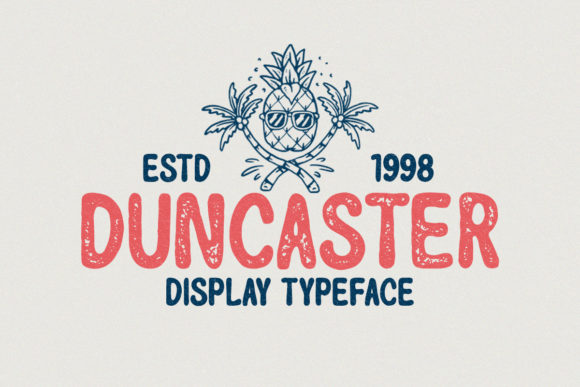
Duncaster Font: The Perfect Blend of Clean and Quirky for Your Creative Projects
In the world of typography, fonts play a crucial role in conveying the tone and personality of a brand or project. With thousands of fonts available, finding the right one that stands out from the crowd can be a daunting task. However, if you’re looking for a font that is both clean and quirky, look no further than the Duncaster font. In this article, we’ll explore the features and benefits of the Duncaster font, and why it’s the perfect fit for your logos, branding, social media, and crafty DIY projects.
What is Duncaster Font?
Duncaster is a spectacular display font that has taken the design world by storm. Its unique blend of clean lines and quirky elements makes it a standout from other fonts in the market. The font is designed to be versatile, making it suitable for a wide range of applications, from logos and branding to social media graphics and crafty DIY projects.
Key Features of Duncaster Font
- Clean and Quirky Design: The Duncaster font boasts a clean and modern design with a hint of quirkiness, making it perfect for designers who want to add a touch of personality to their work.
- Highly Versatile: The font is designed to be versatile, making it suitable for a wide range of applications, from logos and branding to social media graphics and crafty DIY projects.
- Easily Readable: Despite its quirky elements, the Duncaster font is highly readable, making it perfect for use in body text as well as headlines.
- Scalable: The font is highly scalable, making it perfect for use in a variety of sizes and resolutions.
Use Cases for Duncaster Font
The Duncaster font is perfect for a wide range of applications, including:
- Logos and Branding: The font’s unique blend of clean and quirky elements makes it perfect for creating memorable and eye-catching logos.
- Social Media Graphics: The font’s versatility makes it suitable for creating engaging social media graphics, from Facebook posts to Instagram stories.
- Crafty DIY Projects: The font’s quirky elements make it perfect for use in crafty DIY projects, such as handmade cards and invitations.
- Advertising and Marketing Materials: The font’s clean and modern design makes it perfect for use in advertising and marketing materials, such as brochures and flyers.
Benefits of Using Duncaster Font
There are several benefits to using the Duncaster font in your designs, including:
- Unique and Memorable: The font’s unique blend of clean and quirky elements makes it perfect for creating memorable and eye-catching designs.
- Versatile: The font’s versatility makes it suitable for a wide range of applications, from logos and branding to social media graphics and crafty DIY projects.
- Easily Readable: The font’s high readability makes it perfect for use in body text as well as headlines.
- Time-Saving: The font’s highly scalable design makes it perfect for use in a variety of sizes and resolutions, saving you time and effort in the design process.
Tips and Tricks for Using Duncaster Font
Here are some tips and tricks for getting the most out of the Duncaster font:
- Experiment with Different Sizes: The font’s highly scalable design makes it perfect for use in a variety of sizes and resolutions.
- Pair with Other Fonts: The font’s versatility makes it perfect for pairing with other fonts to create a unique and eye-catching design.
- Use in Combination with Images: The font’s clean and modern design makes it perfect for use in combination with images to create engaging and memorable designs.
In conclusion, the Duncaster font is a spectacular display font that is perfect for designers who want to add a touch of personality to their work. Its unique blend of clean and quirky elements makes it perfect for a wide range of applications, from logos and branding to social media graphics and crafty DIY projects. With its high readability, versatility, and scalability, the Duncaster font is a must-have for any designer looking to create memorable and eye-catching designs.